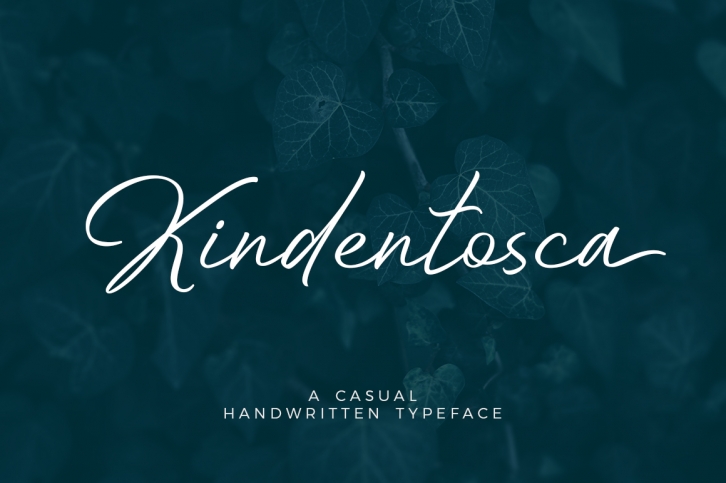
Kindentosca is a gorgeous font that was realeased on May 16, 2019. The font can be used in many style contexts and design environments. Perfect for invitations, magazines, websites, logos, and more! It was designed by Tardiex and the file size is 7.56 MB. Thanks for checking out this font!